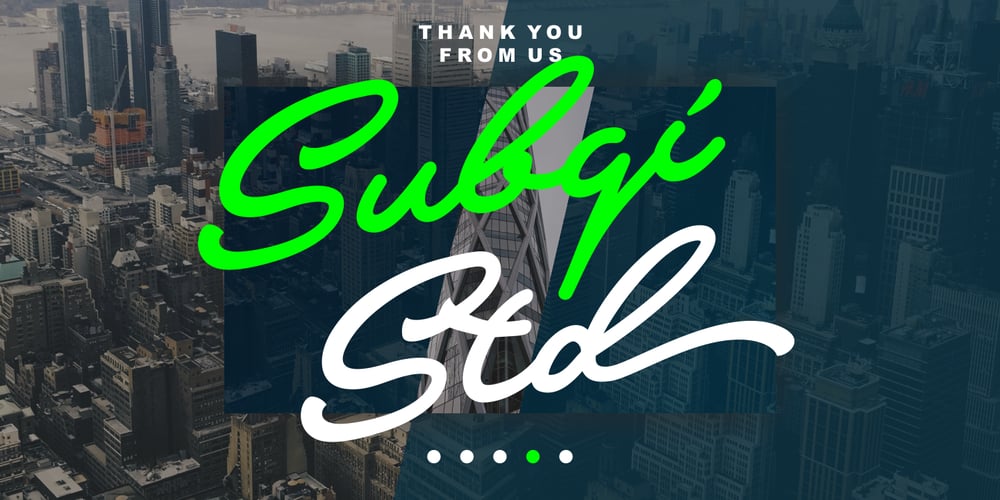
Crumble Font Family was designed by Amir Subqi Setiaji and published by Subqi Studio. Crumble contains 1 styles and family package options. Crumble is an elegant and classy script with signature style! Even though it is called ‘Crumble’ it has been made very carefully to get the best movement and flow. This font will perfect for some Display purposes like : logotypes, quotes, posters, wedding invitations, and more. You can check the preview images for better look at it and how to use the OpenType features!